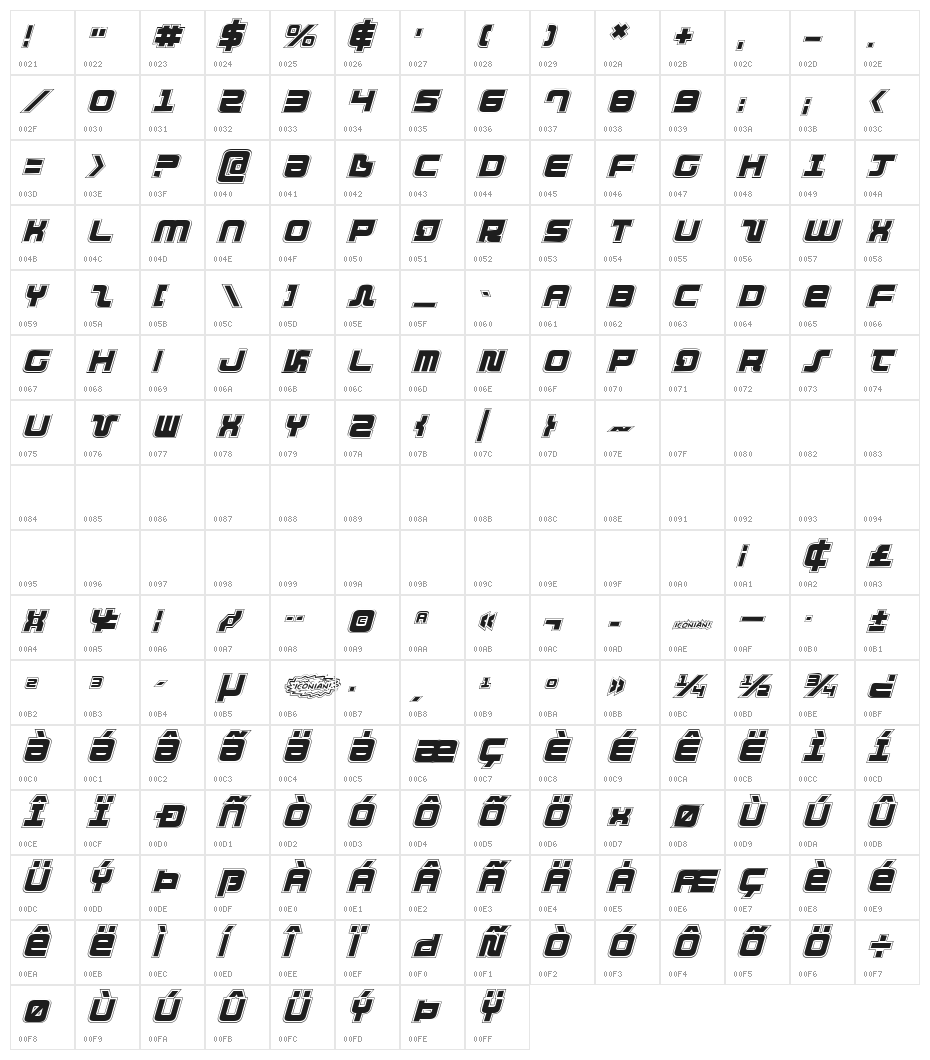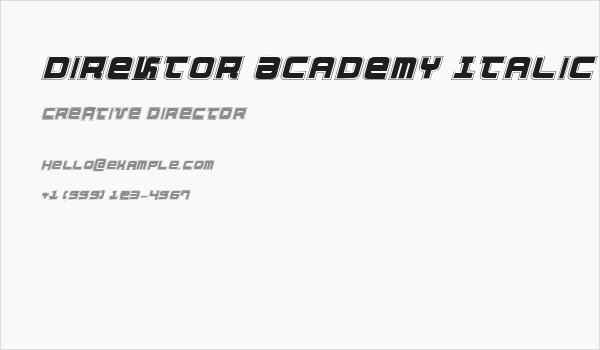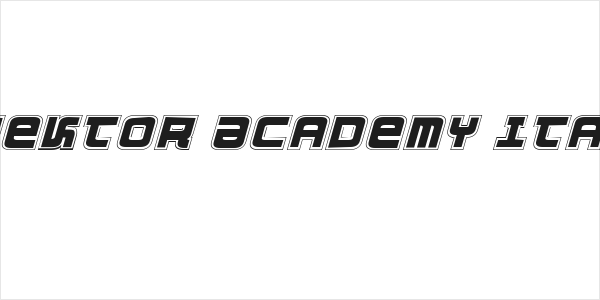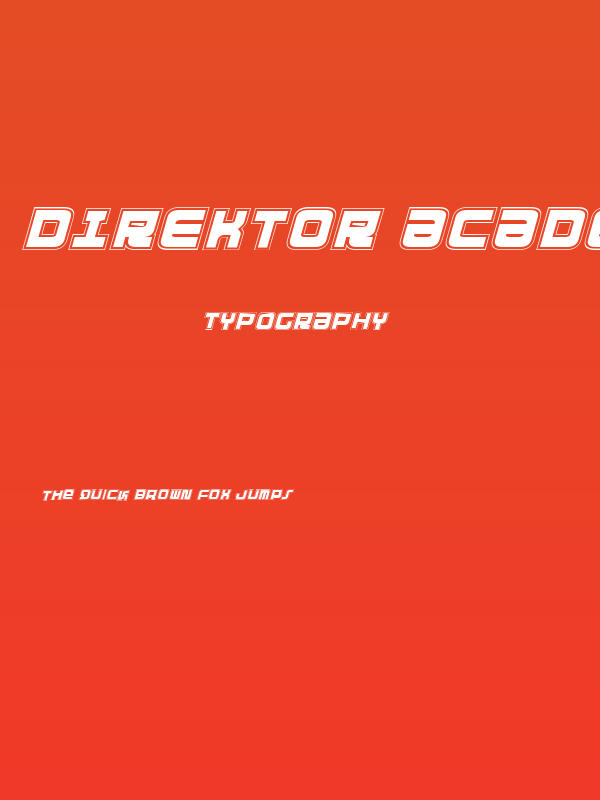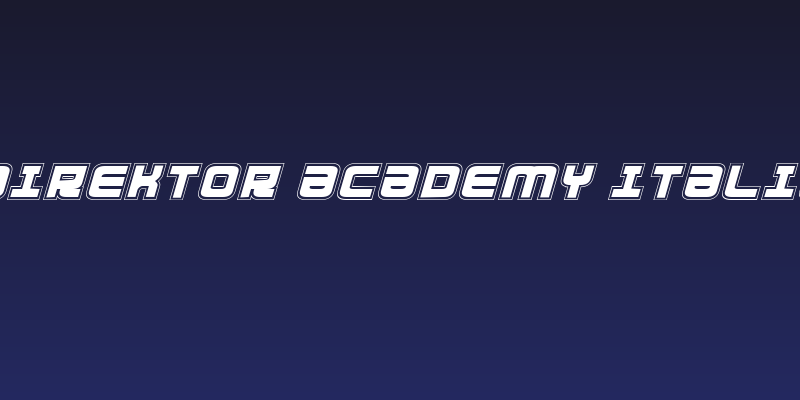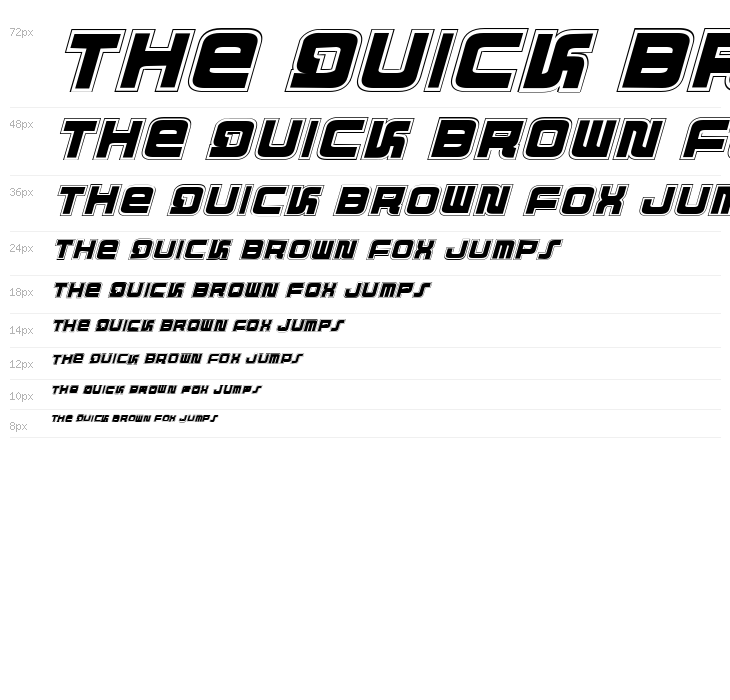
Direktor Academy Italic Font
Direktor Academy Italic Description
This font exhibits a bold, futuristic style with a strong geometric influence. The characters are outlined, creating a three-dimensional effect that adds depth and visual interest. The italic slant gives it a dynamic and forward-moving appearance, enhancing its modern aesthetic. The uppercase and lowercase letters maintain a consistent style, with sharp angles and clean lines. Numbers and special characters are designed to match the overall theme, ensuring uniformity across all elements. The font's unique design makes it stand out, suitable for projects that require a bold statement.
| Proposed Projects | Ideal for technology branding, sci-fi movie posters, video game titles, and modern advertising campaigns. |